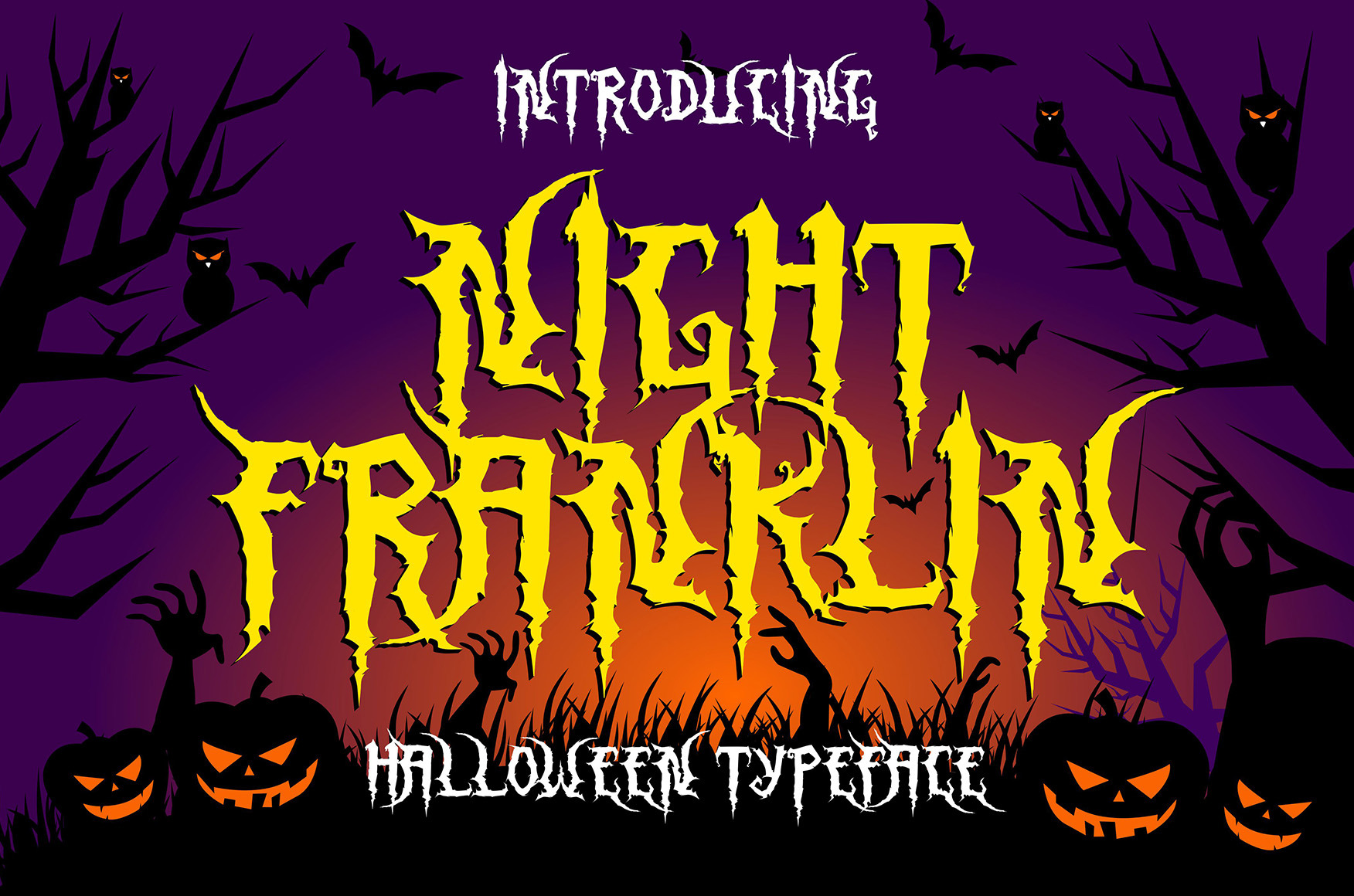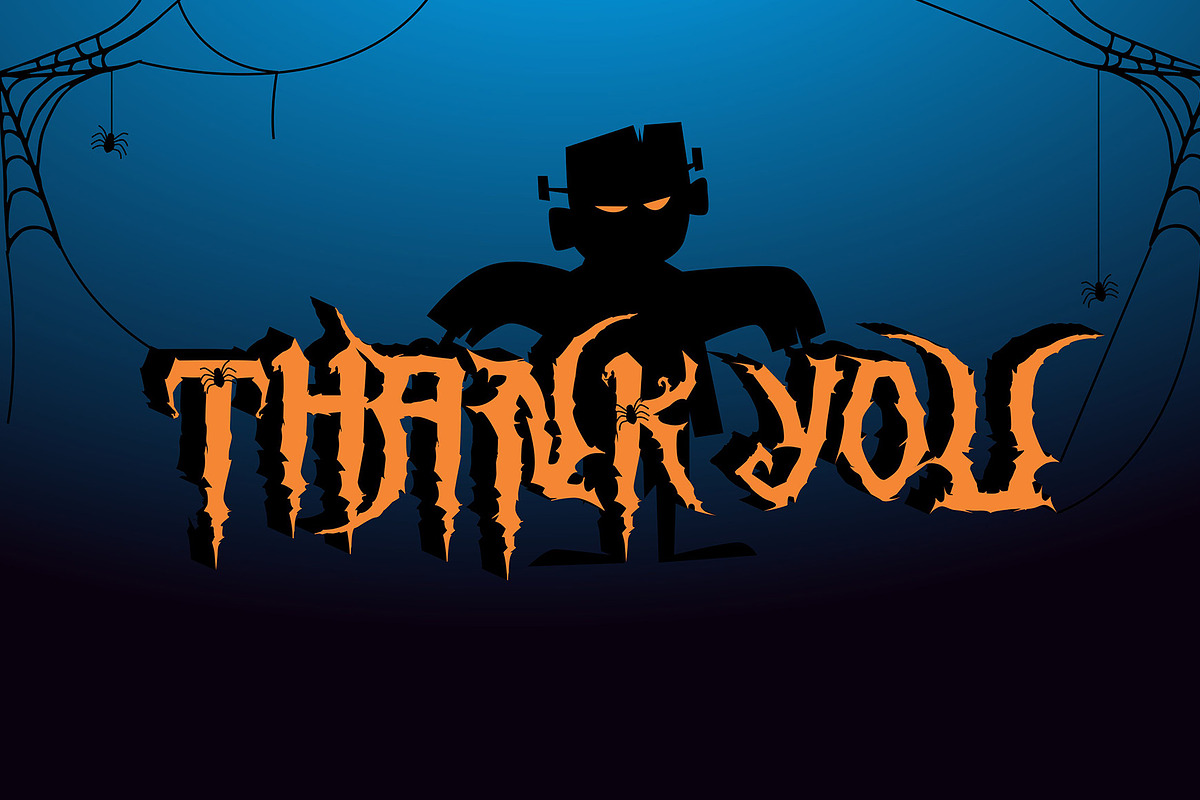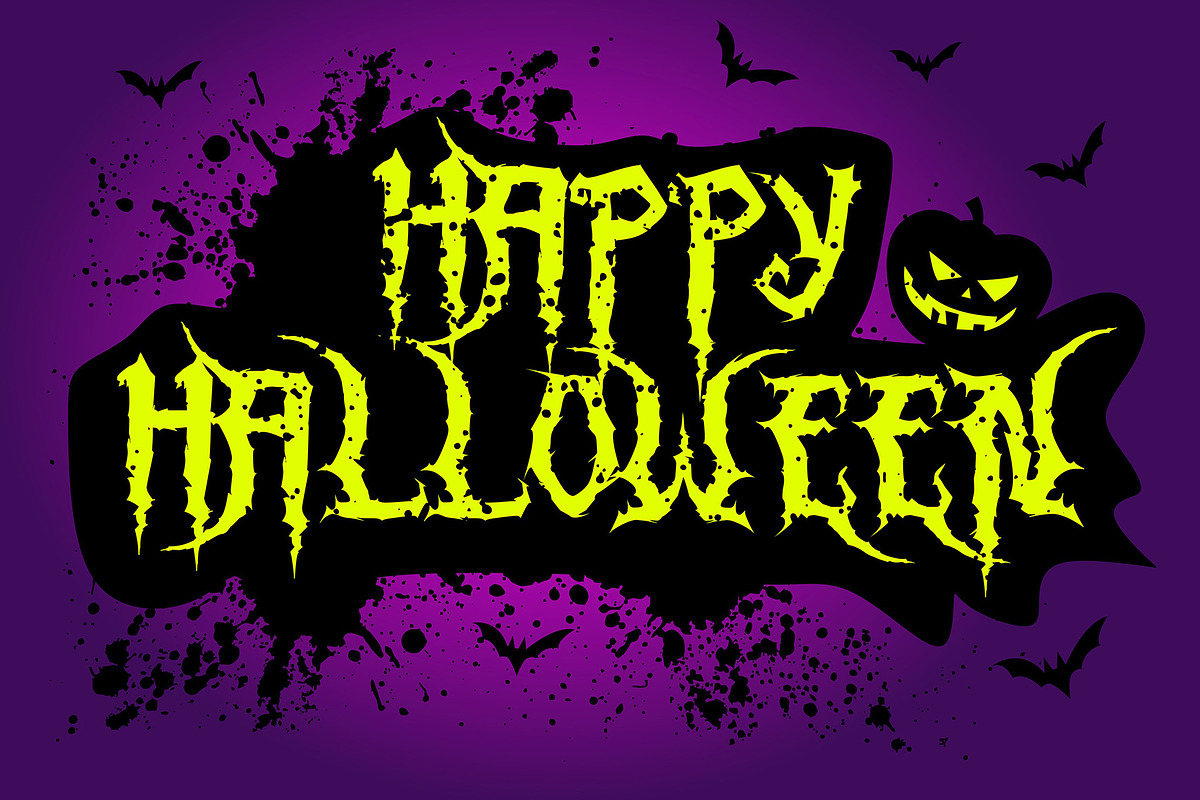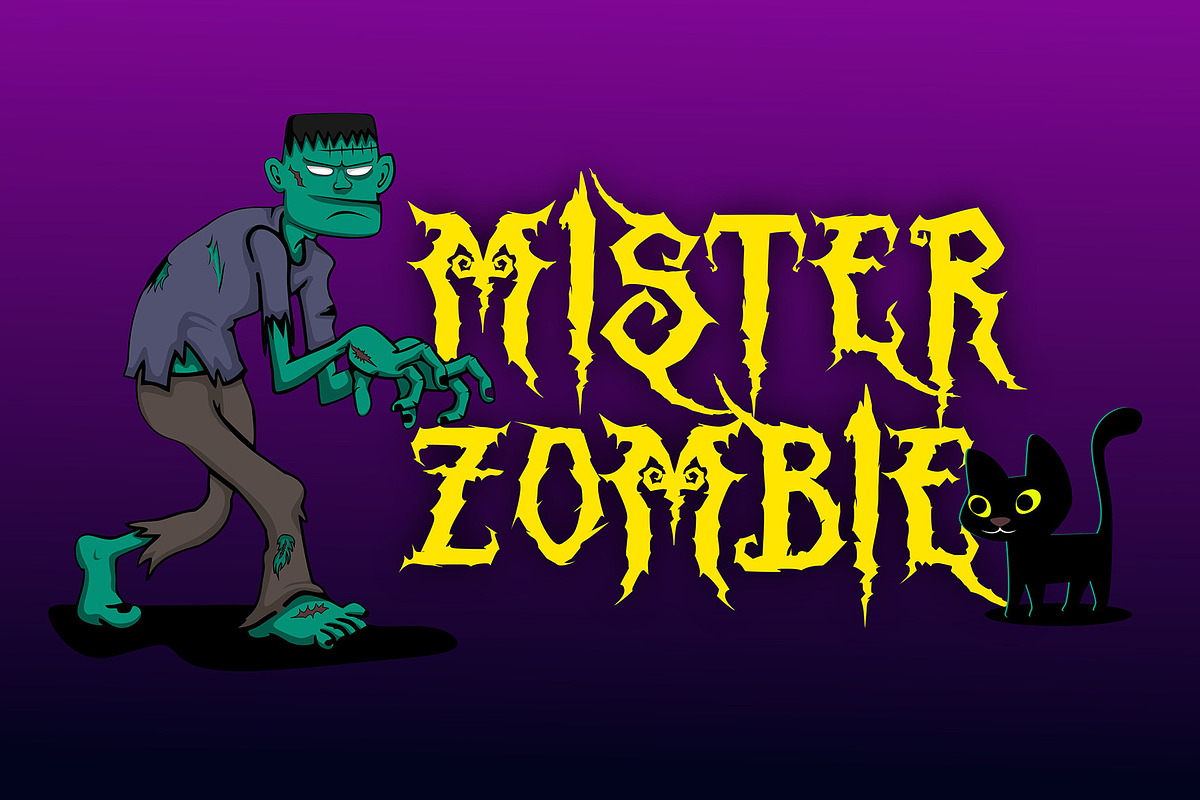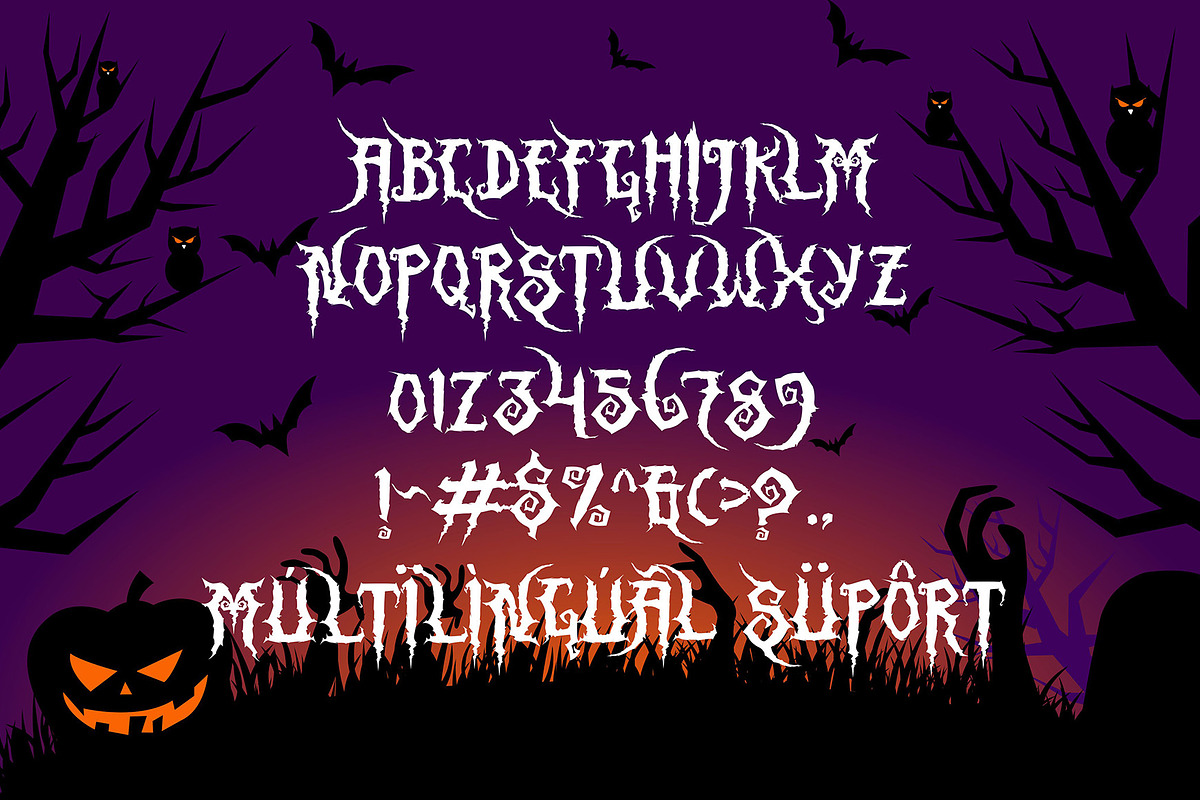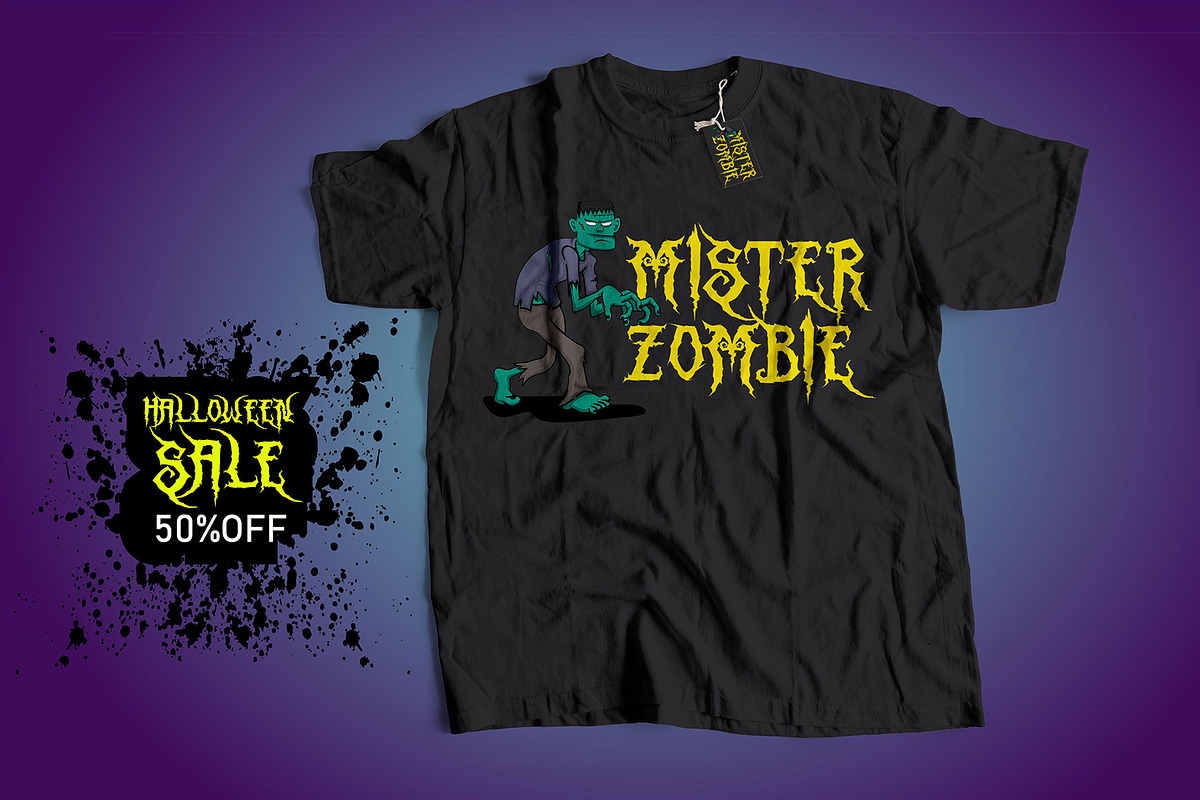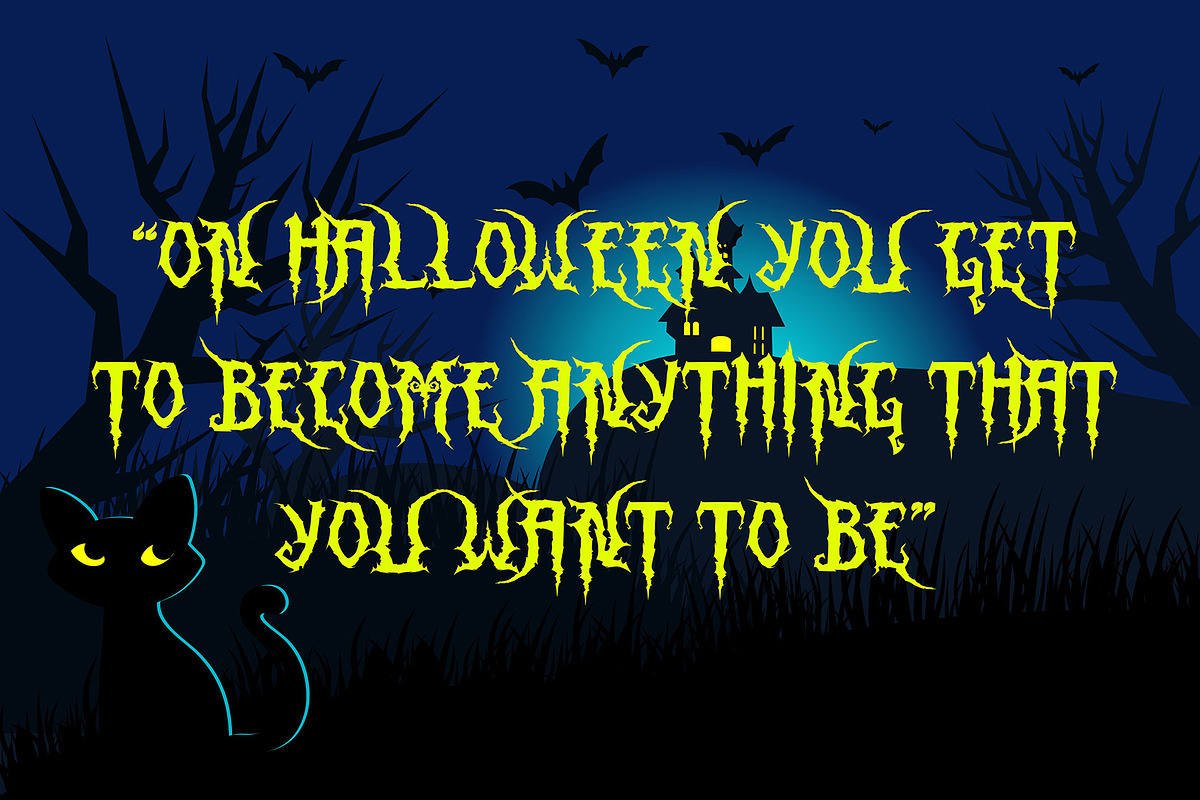
Night Franklin - Halloween Font
Hello, this is Night Franklin, a Unique display font which is prepared to welcome Halloween.
Night Franklin comes with an awesome horror style, make it very perfect to use for quotes, logotypes, badges, labels, packaging, t-shirts, or simply use it in your next design project. Especially in Halloween celebrations